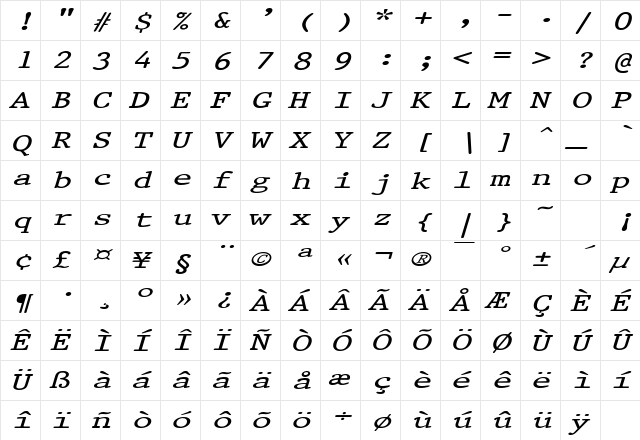
PrestigeExtended Italic Font Preview
PrestigeExtended Italic
PrestigeExtended Italic Font Details
Design Context for PrestigeExtended Typeface
PrestigeExtended offers clean, dependable letterforms without strong stylistic allegiance, making it a practical choice for designers who need flexibility. The dynamic lean of this cut emphasises speed and emphasis in any layout.